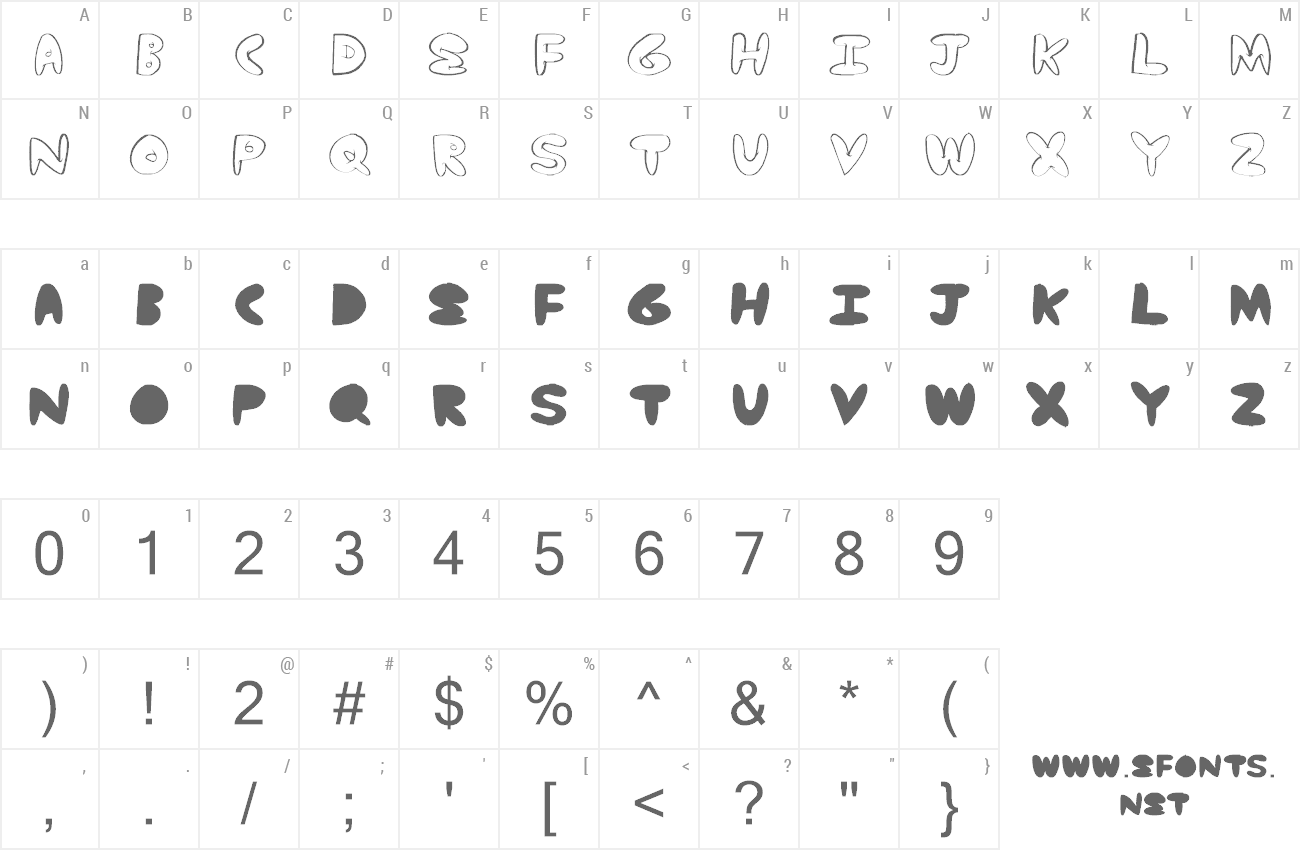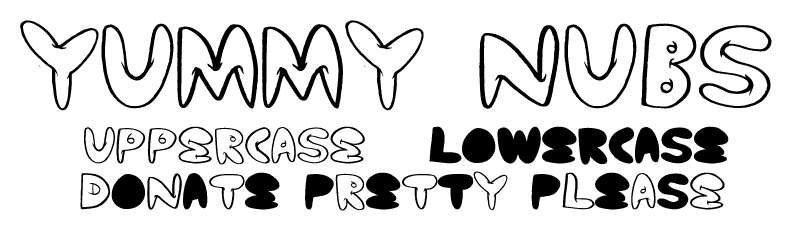
Preview and download Yummy Nubs Font. Created by Xerographer Fonts in Fancy Cartoon styles with Donationware license.
Yummy Nubs is for your enjoyment! 1) Add me on FB: www.facebook.com/infeld 2) Please pretty please donate! 3) Suggested Donation $6-$45 dollars 4) Enjoy! 5) Tips: The font works great big! some great details! lowercase is filled in. -Max |